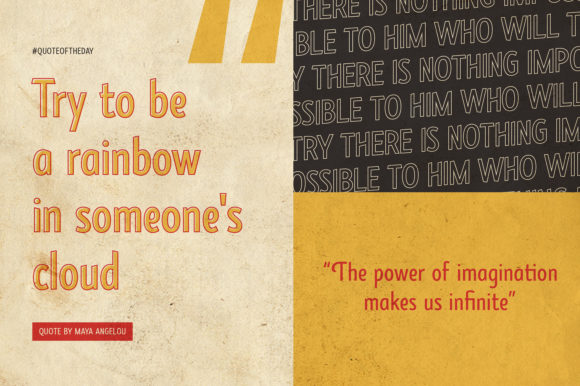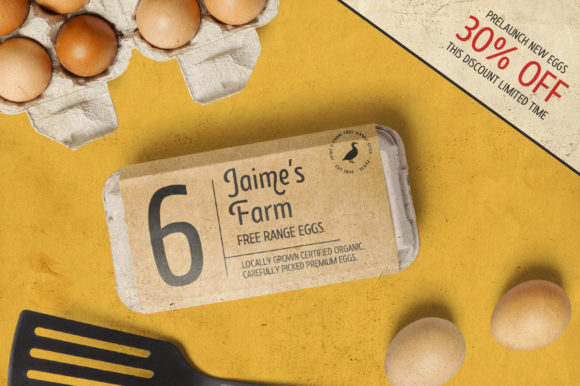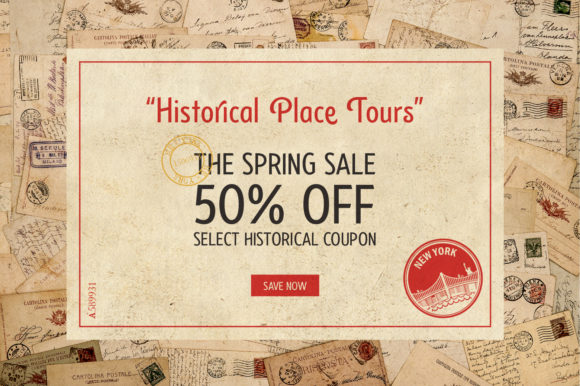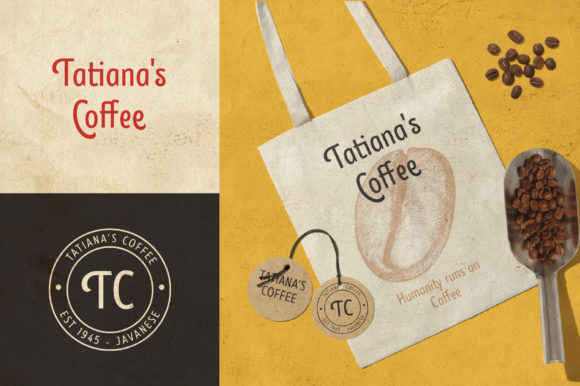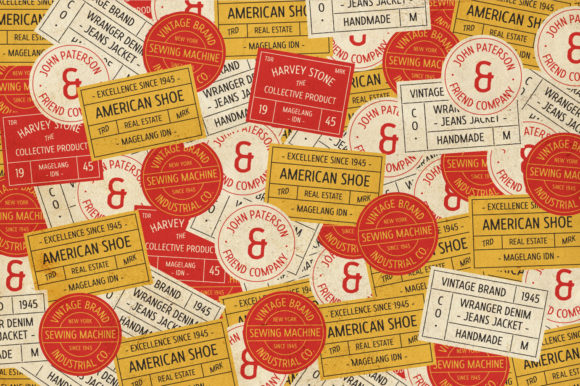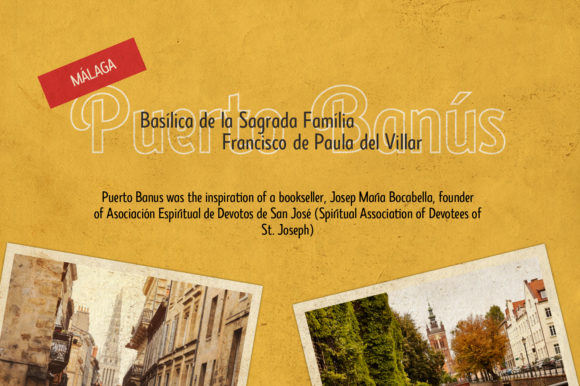
Discover the Unique Charm of Burma Font: Elevate Your Designs with an Authentic Display Font
In the world of typography, fonts play a crucial role in conveying messages, expressing emotions, and creating lasting impressions. For designers and crafters, finding the perfect font can be a daunting task, especially when looking for something that stands out from the crowd. This is where Burma Font comes into play – an authentic and unique display font that can add a touch of elegance and sophistication to your creative projects.
What Makes Burma Font Special?
Burma Font is not just another font; it’s a statement piece. Its distinctive style and authentic feel make it an excellent choice for designers and crafters who want to add a personal touch to their work. Whether you’re working on a branding project, a website design, or a crafting project, Burma Font can help you create something truly unique and eye-catching.
Key Features of Burma Font
- Unique and Authentic Style: Burma Font boasts a one-of-a-kind design that sets it apart from other fonts.
- Display Font: Perfect for headings, titles, and emphasis, Burma Font is designed to make your text stand out.
- Elegant and Sophisticated: The font’s classic feel makes it suitable for a wide range of projects, from modern designs to traditional crafts.
- Easy to Read: Despite its unique style, Burma Font remains clear and easy to read, making it perfect for use in various contexts.
How to Use Burma Font in Your Designs
- Pair it with Other Fonts: Combine Burma Font with complementary fonts to create visual interest and hierarchy in your design.
- Use it for Headings and Titles: Take advantage of Burma Font’s display capabilities by using it for headings, titles, and emphasis.
- Experiment with Colors and Textures: Play around with different colors and textures to add depth and personality to your design.
Why Designers and Crafters Love Burma Font
Burma Font has quickly become a favorite among designers and crafters, and for good reason. Here are a few reasons why:
- Versatility: Burma Font can be used in a wide range of projects, from digital designs to handmade crafts.
- Uniqueness: The font’s authentic and unique style ensures that your designs stand out from the crowd.
| Font Name | Burma Font |
| Author | Runsell Graphic |
Burma Font is a game-changer for designers and crafters looking to add a touch of elegance and sophistication to their projects. Its unique and authentic style, combined with its ease of use, makes it an excellent choice for anyone looking to create something truly special. Whether you’re working on a branding project, a website design, or a crafting project, Burma Font is sure to make your designs stand out.